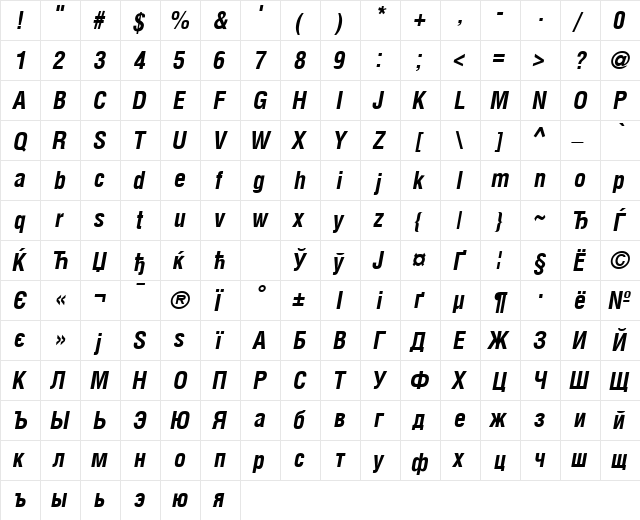
AGLettericaCondensed BoldOblique
Design Context for AGLettericaCondensed Typeface
AGLettericaCondensed is a composed and adaptable typeface that performs quietly and consistently across a wide range of design contexts. The dynamic lean of this cut emphasises speed and emphasis in any layout. Its bold stroke weight gives it real presence on the page. Its narrow stance lets it pack a punch even in space-constrained designs.
Pro Tip: Use AGLettericaCondensed for emphasis, pull quotes, and subheadings where its slanted energy can add rhythm to the layout.